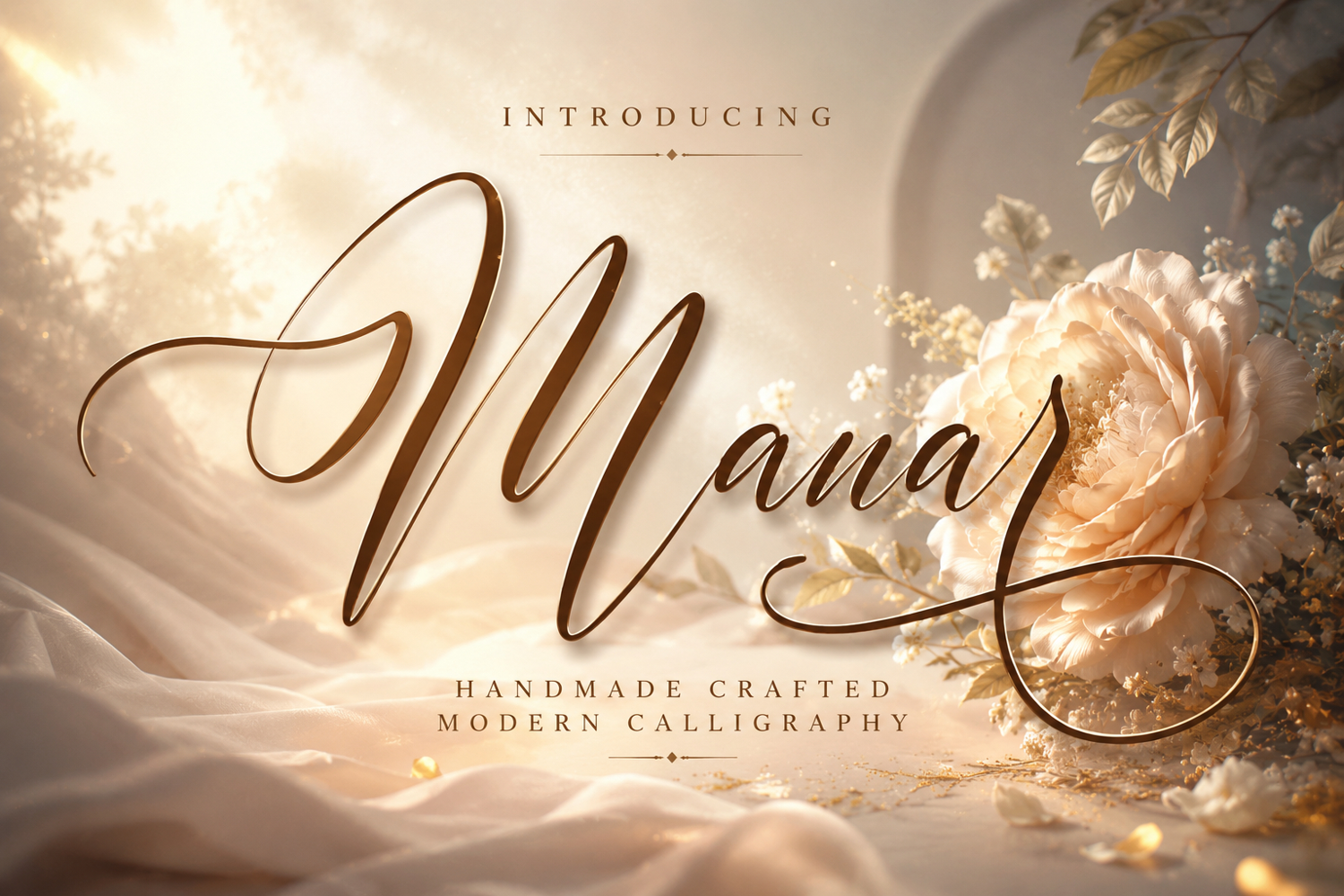
Mawar
Mawar is an exquisite handwritten font, masterfully designed to become a true favorite. It maintains its classy calligraphic influences while feeling contemporary and fresh. Fall in love with it and bring your projects to the highest levels!
Mawar is Classic calligraphy design, including Regular and Slant. This font is casual and pretty with swashes. Can used for various purposes. such as logo, product packaging, wedding invitations, branding, headlines, signage, labels, signature, book covers, posters, quotes and more.